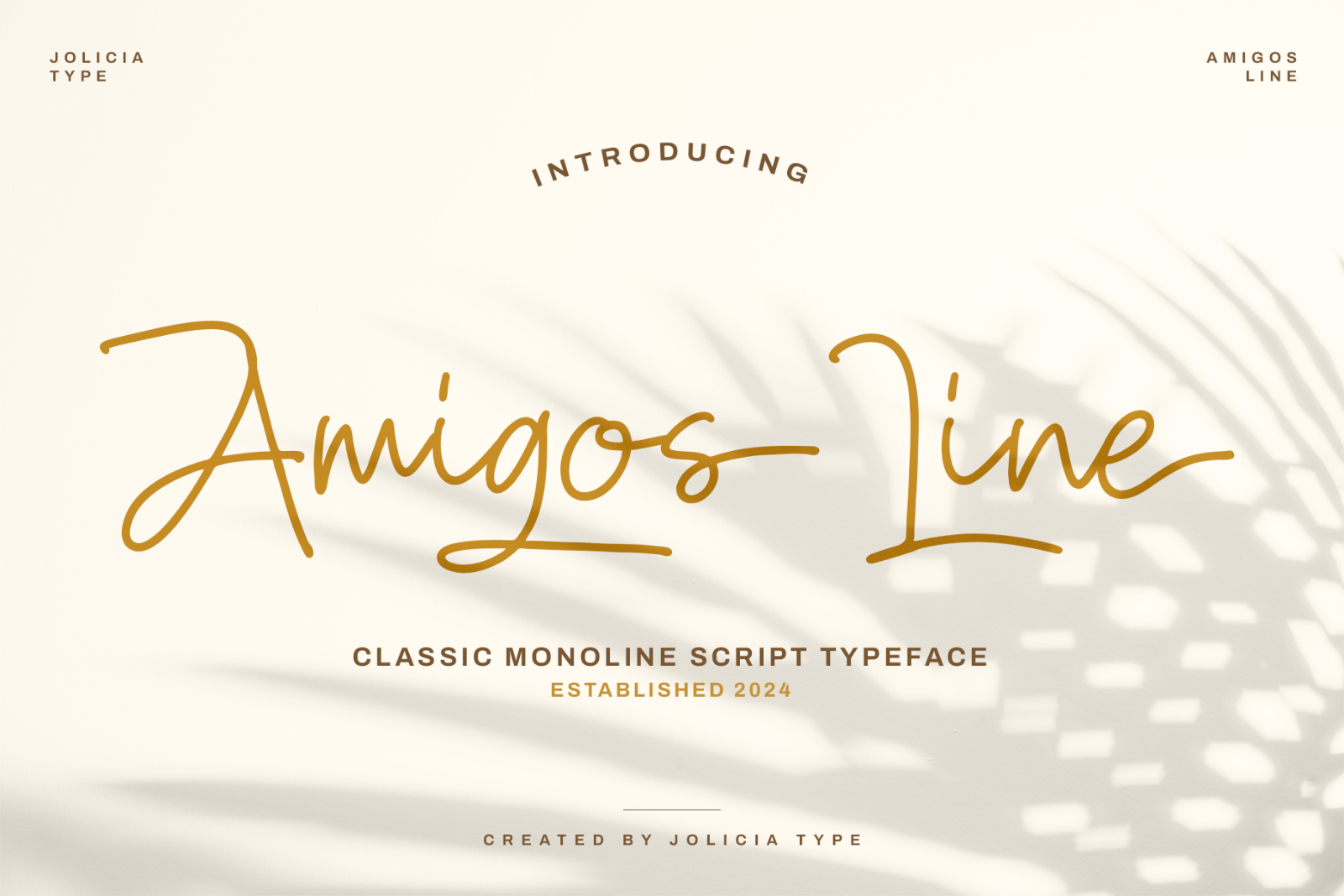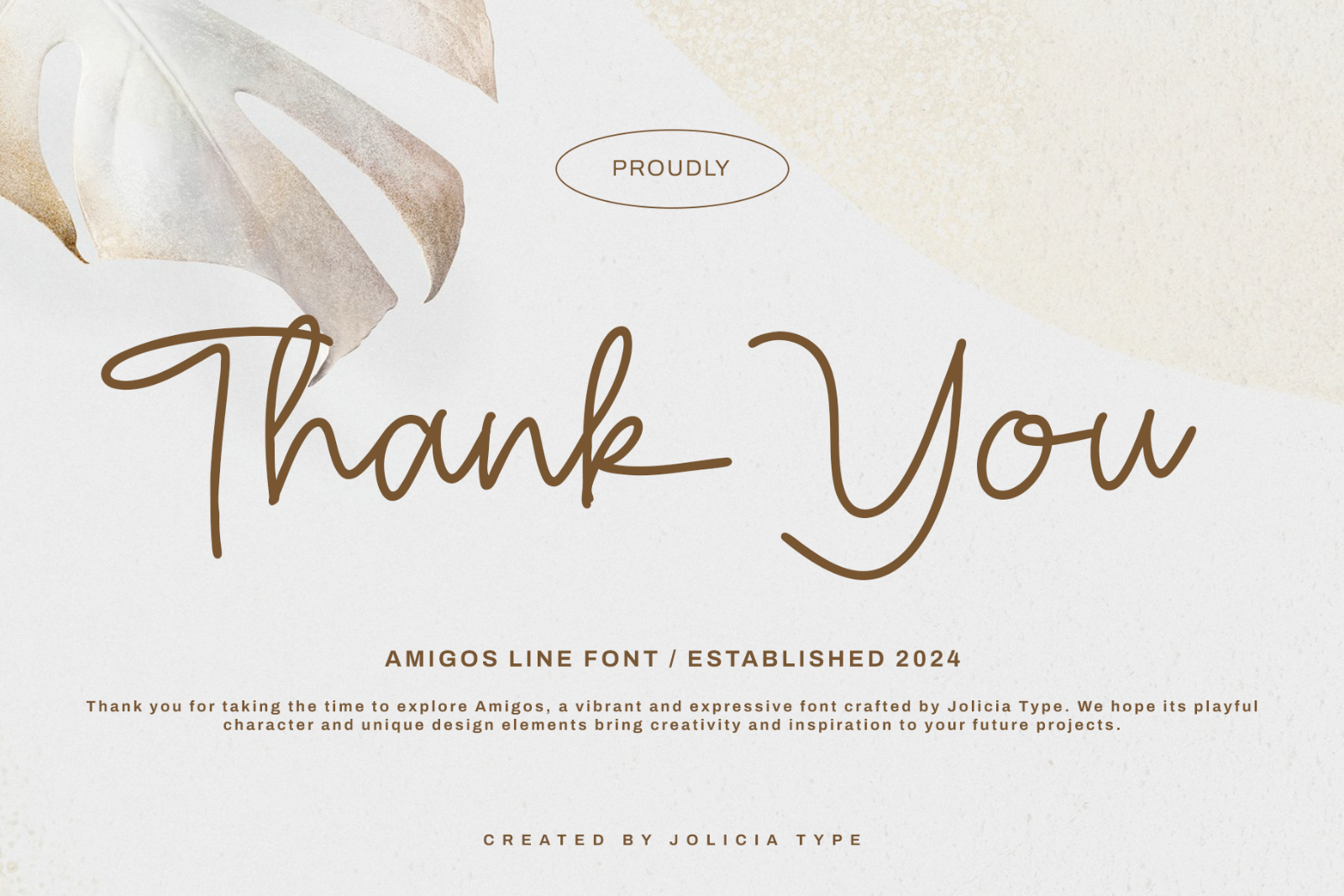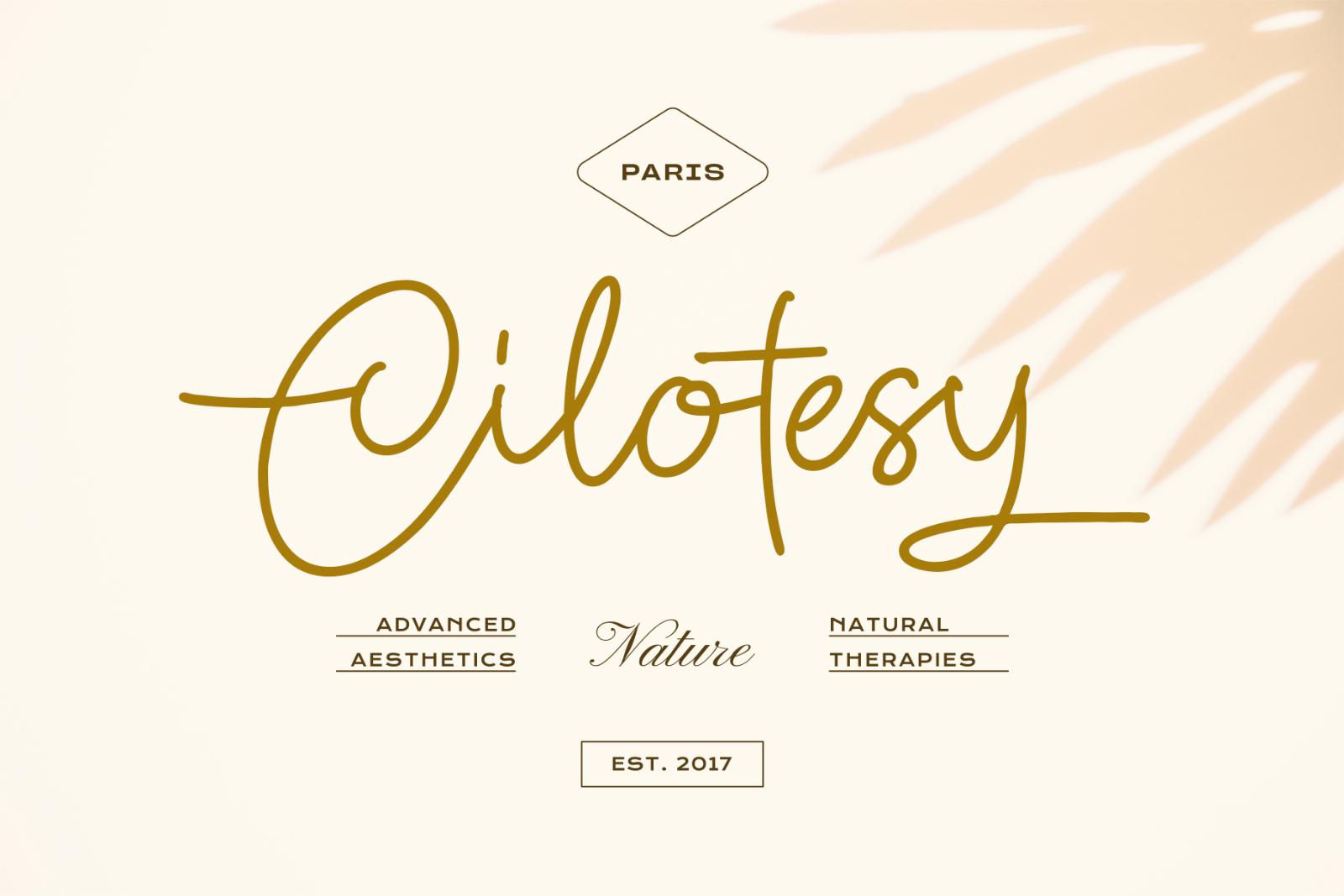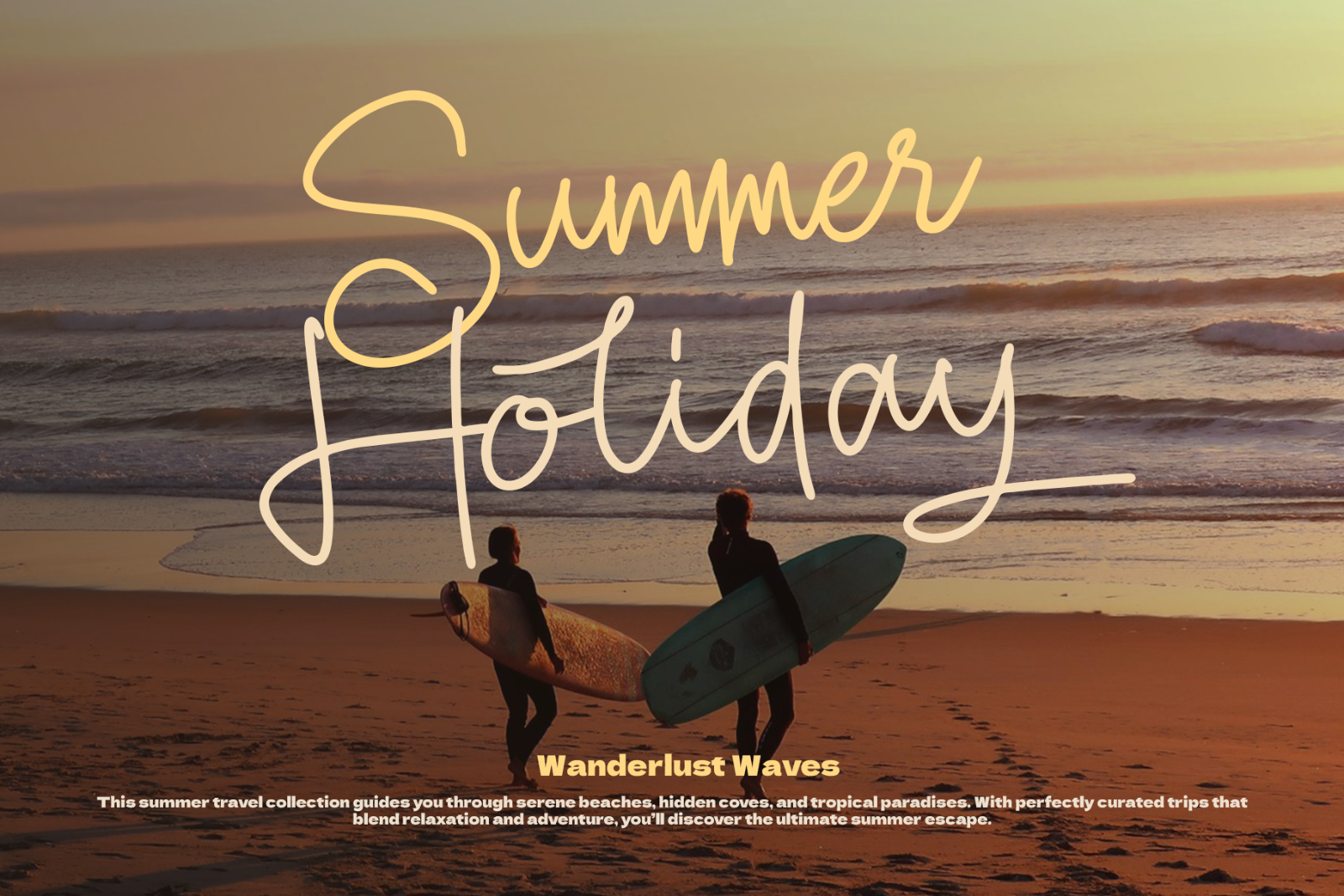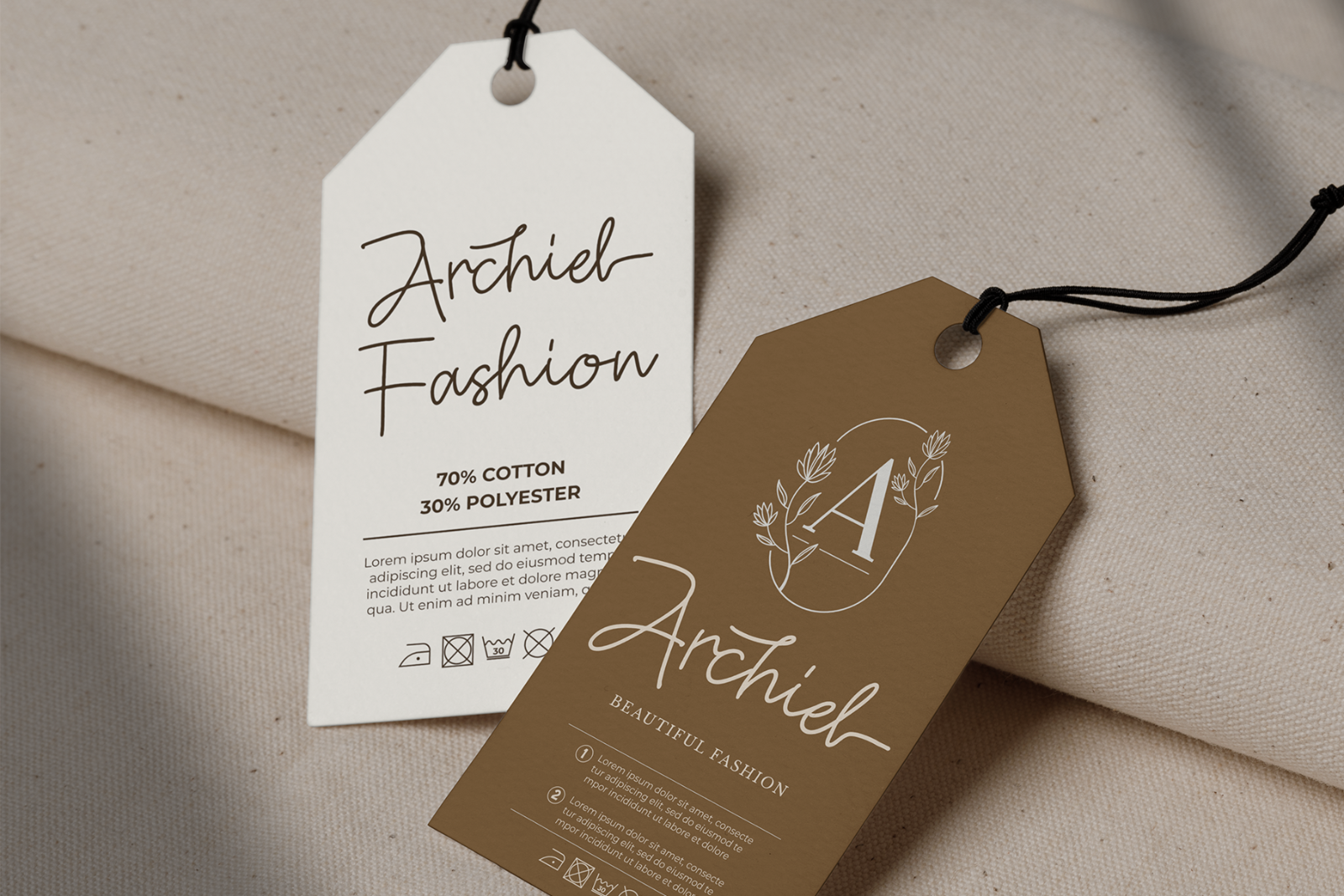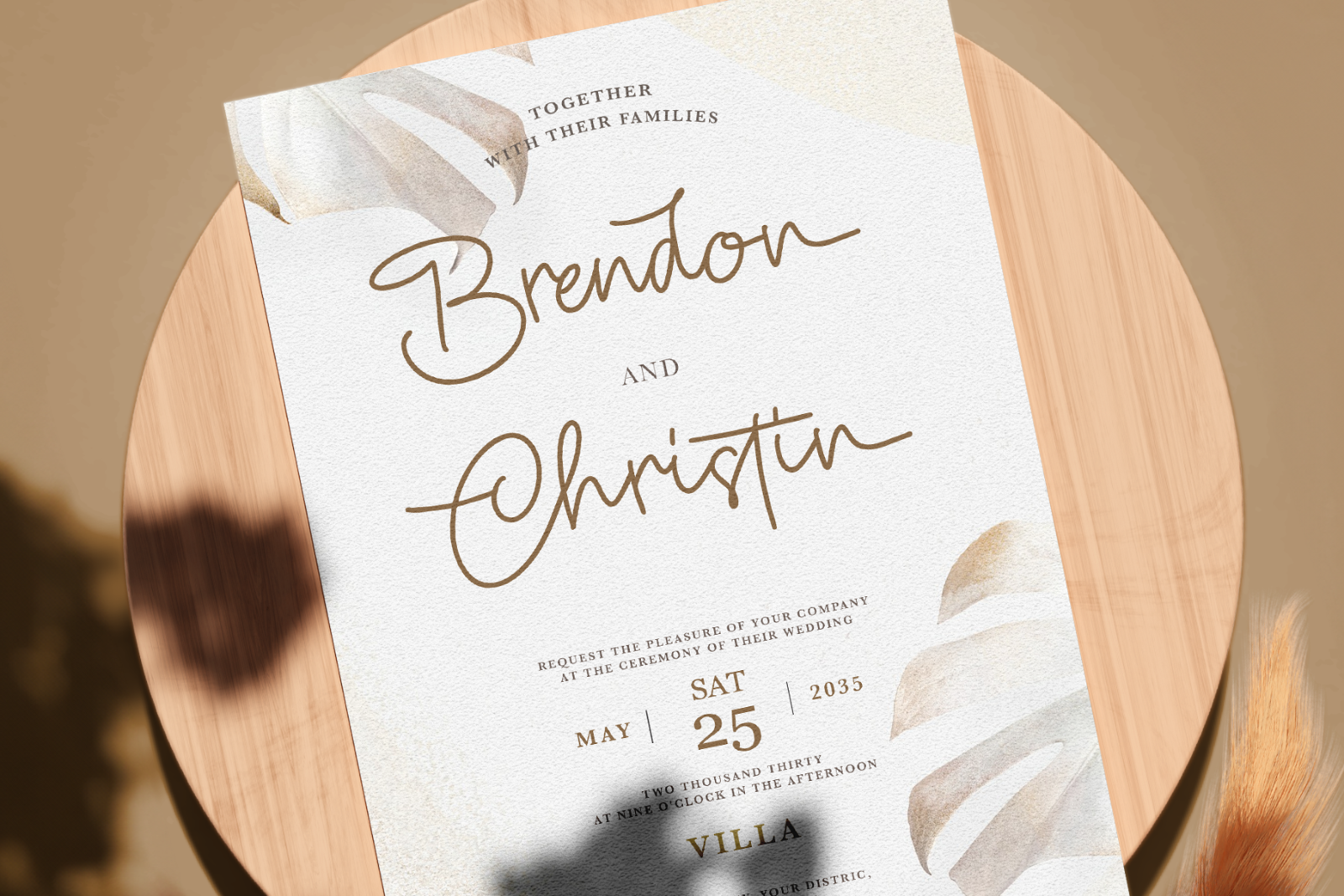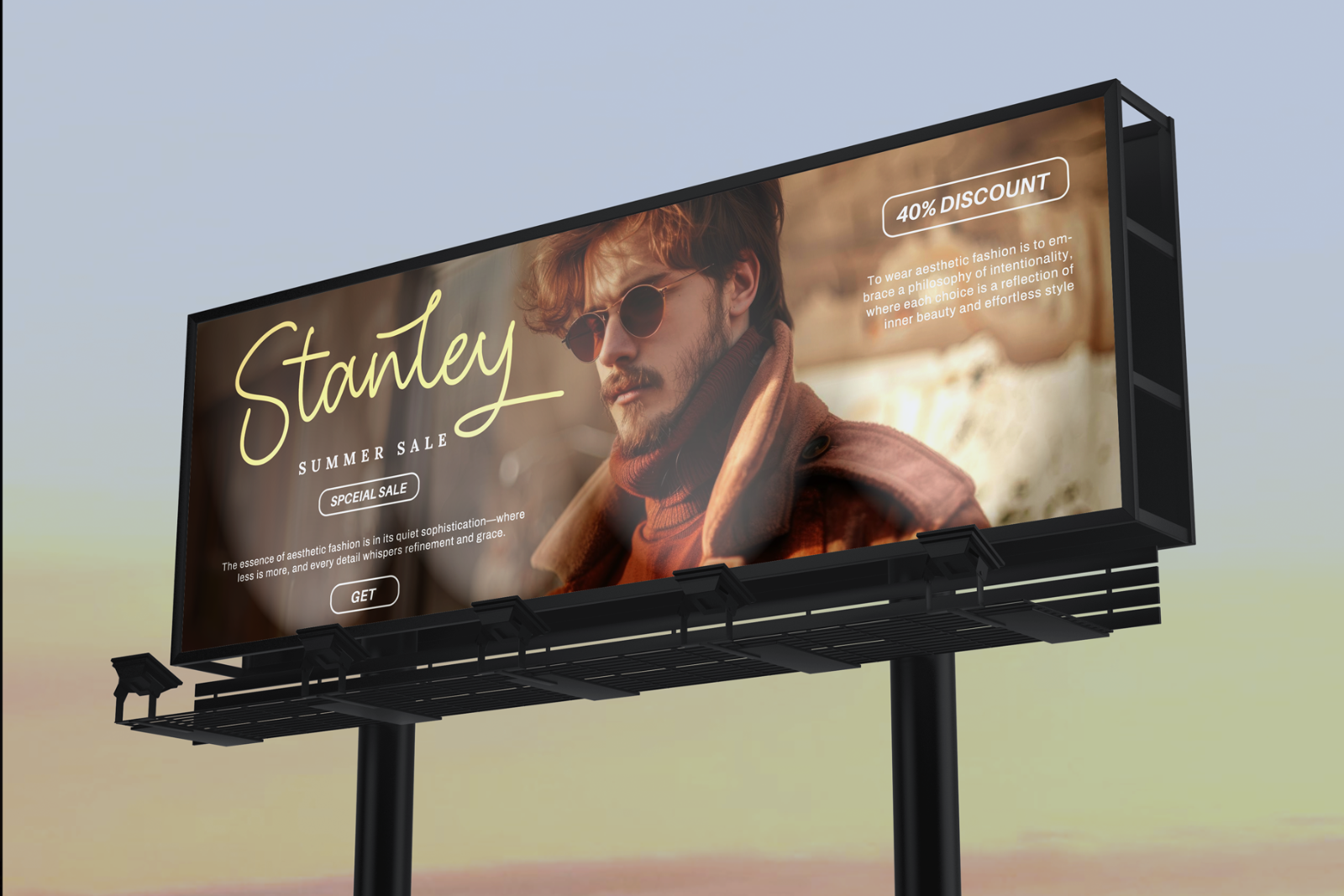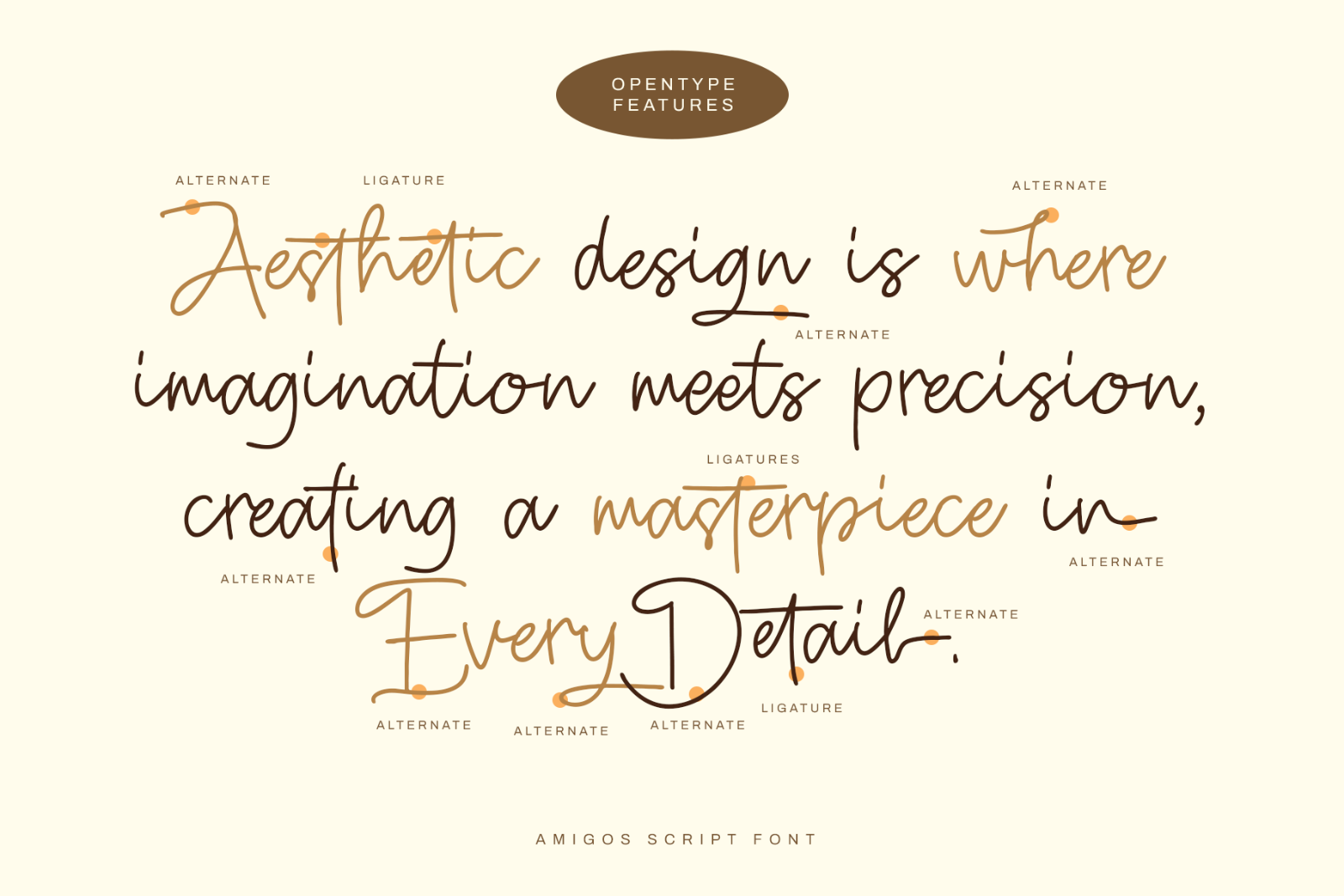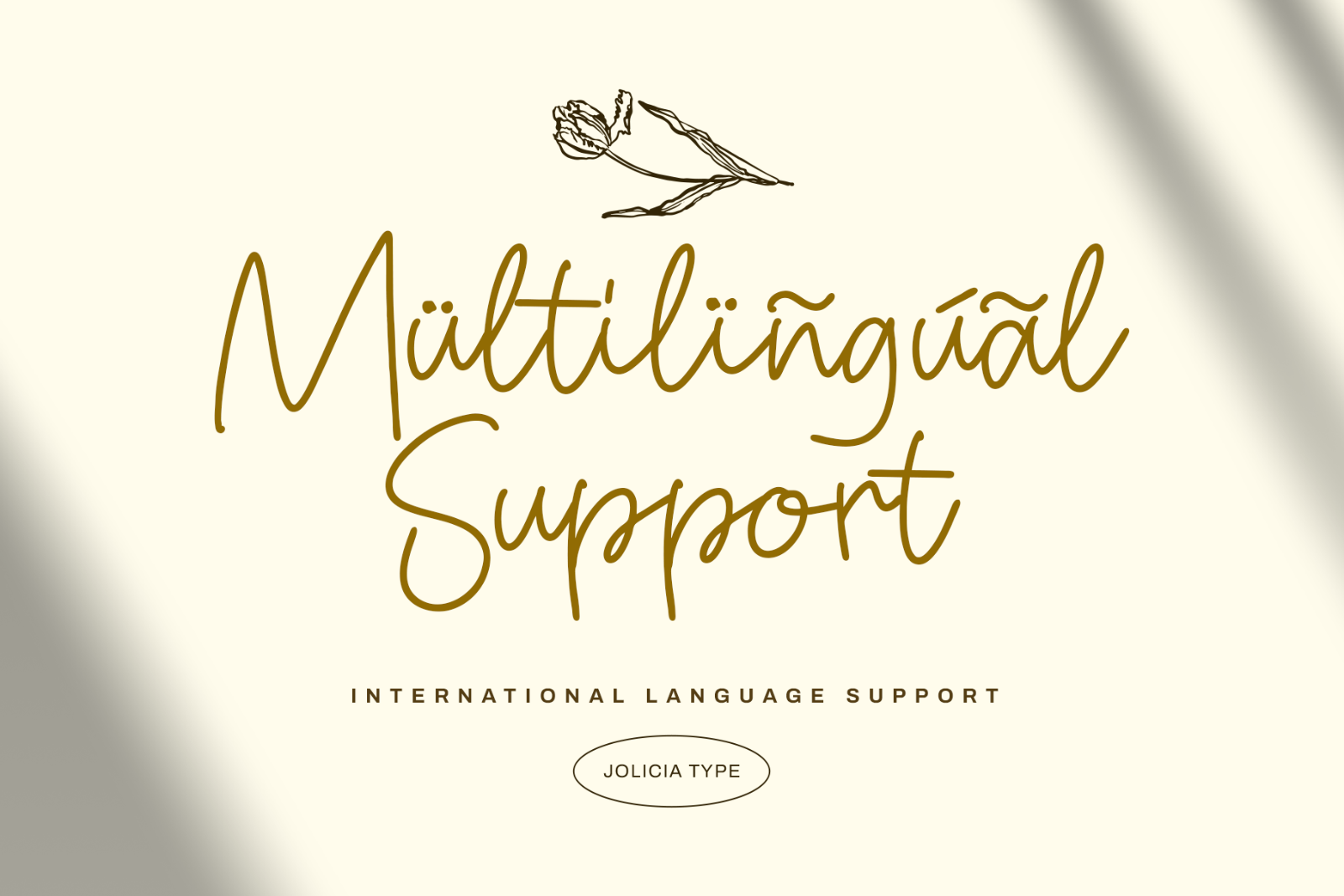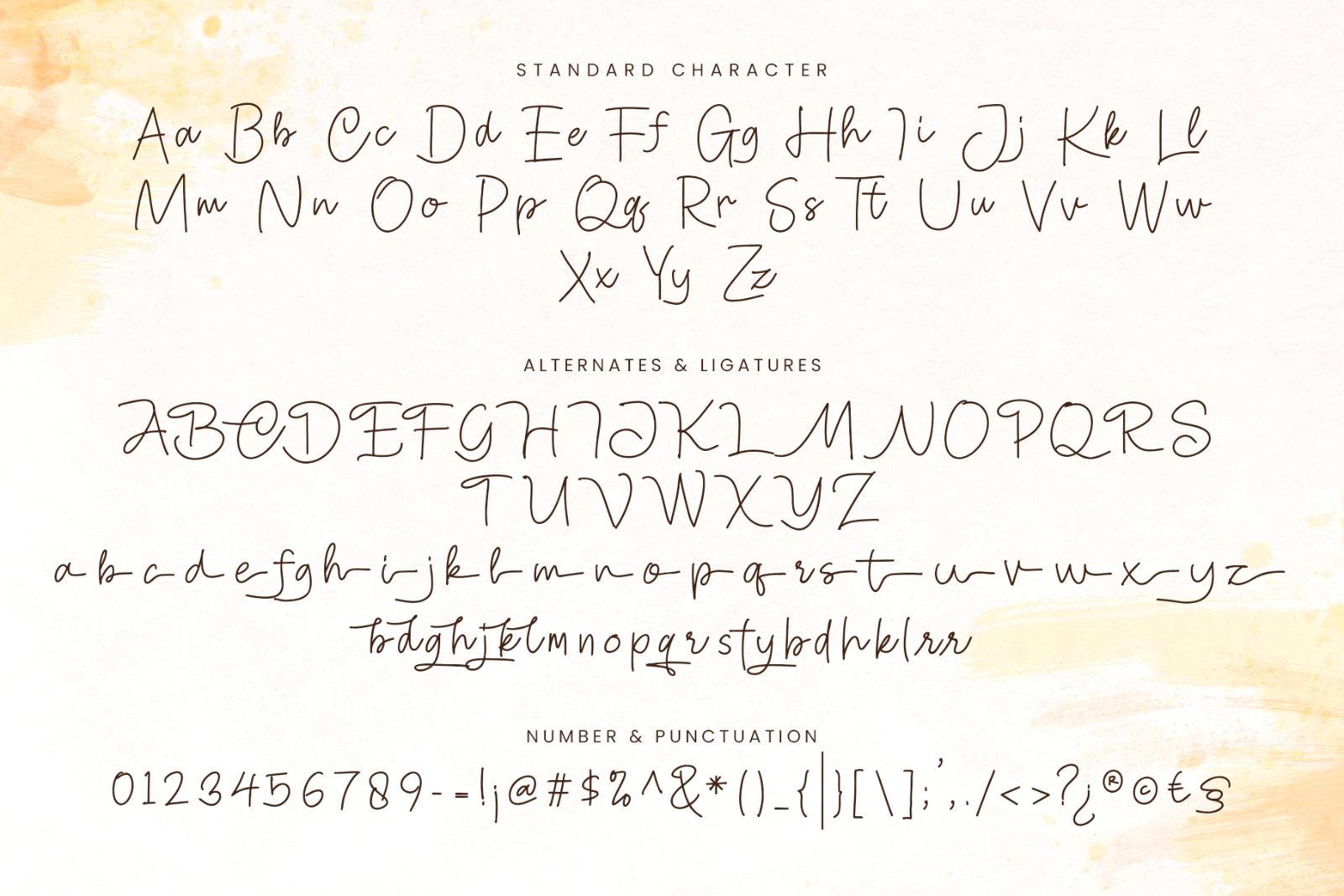
Amigos Line is a natural handwritten script font designed to add an authentic, personal touch to your creative projects. With its smooth flow and genuine hand-drawn style, this font brings warmth and friendliness to every design.
Amigos Line is ideal for branding, invitations, social media graphics, and more—perfect for projects that need a unique, personable look. Enhance your designs with this versatile, elegant font and create a lasting impression that feels both genuine and stylish.